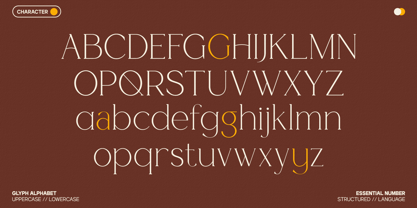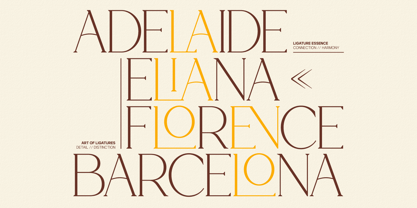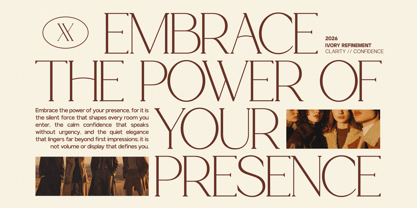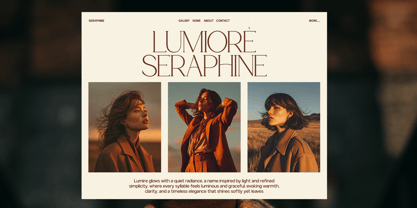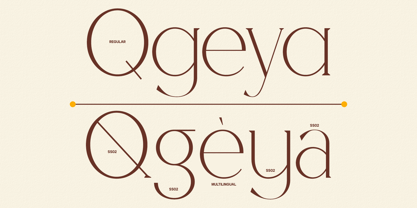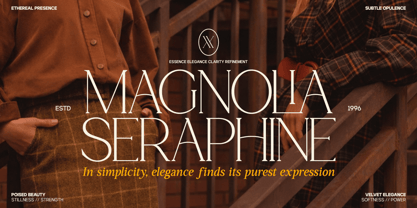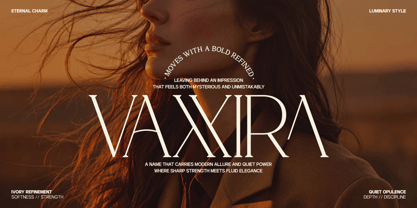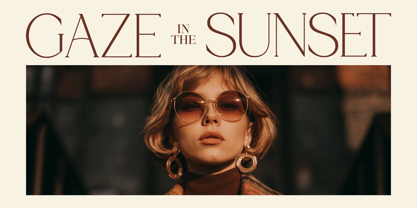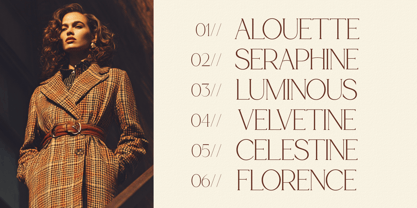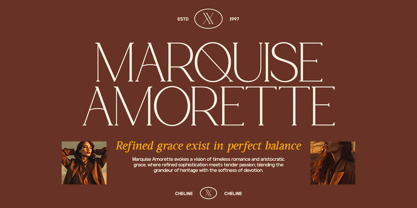
GC Cheline
by Onyx Studio
The GC Cheline Font Family was designed by Muhammad Hafiizh Solana and published by Onyx Studio. GC Cheline contains 2 styles and family package options. More about this family
GC Cheline – Modern Elegant Serif is a refined serif typeface designed to express grace, sophistication, and contemporary beauty. Crafted with delicate contrast, smooth curves, and balanced proportions, it delivers a timeless yet modern voice that feels luxurious and confident. Combining classic serif foundations with modern detailing, GC Cheline is perfect for high-end branding, fashion editorials, beauty packaging, wedding designs, luxury logos, and premium visual identities. Its elegant letterforms create a harmonious rhythm that enhances both headlines and refined body text. Carefully structured to maintain clarity and poise across print and digital media, GC Cheline brings softness without losing authority—making every composition feel polished and intentional. Features: Uppercase & Lowercase Numbers & Punctuation Modern Elegant Serif Construction Multilingual Support (170+ Languages) Elevate your design with timeless elegance and modern sophistication using GC Cheline – Modern Elegant Serif.
Designers: Muhammad Hafiizh Solana
Foundry: Onyx Studio